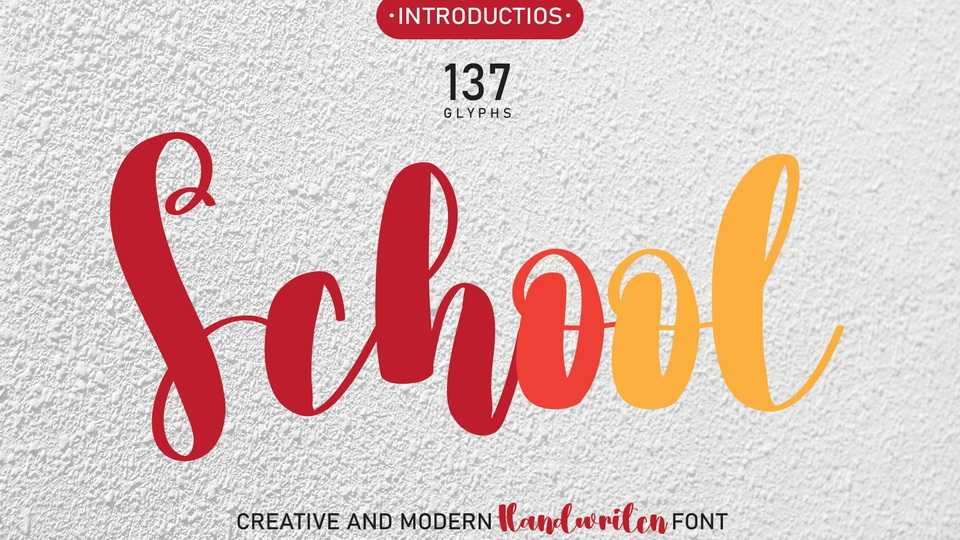
Download School font, an organic handwritten typeface with an elegant touch. School font is perfect for your creative ideas, both formal and informal.